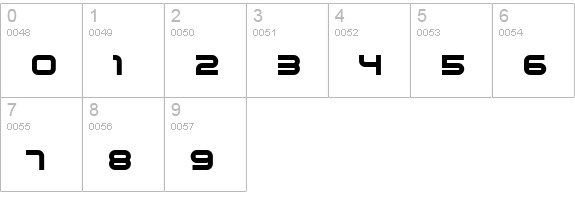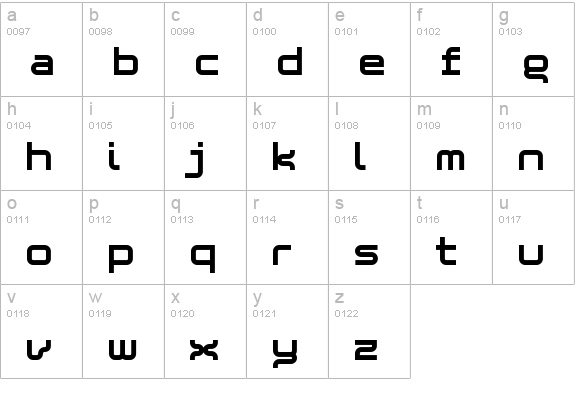
Blessed ExtraBold is an extra-heavy, attention-grabbing variant in the Blessed typeface family \xE2\x80\x94 well suited to high-impact headlines, posters, and bold branding.
Blessed ExtraBold font is a striking and powerful typeface that commands attention with its bold and robust appearance. Perfect for making a statement or emphasizing important information, Blessed ExtraBold is a versatile font that can be used for a variety of design projects. Its strong and commanding presence exudes confidence and authority, making it an ideal choice for headlines, titles, and branding materials. What's even better is that Blessed ExtraBold font is available for free download at FontsMarket.com. This means you can easily access this impressive font without any cost, making it a valuable addition to your font collection. Don't miss out on the opportunity to enhance your designs with the bold and impactful style of Blessed ExtraBold font – download it for free today!